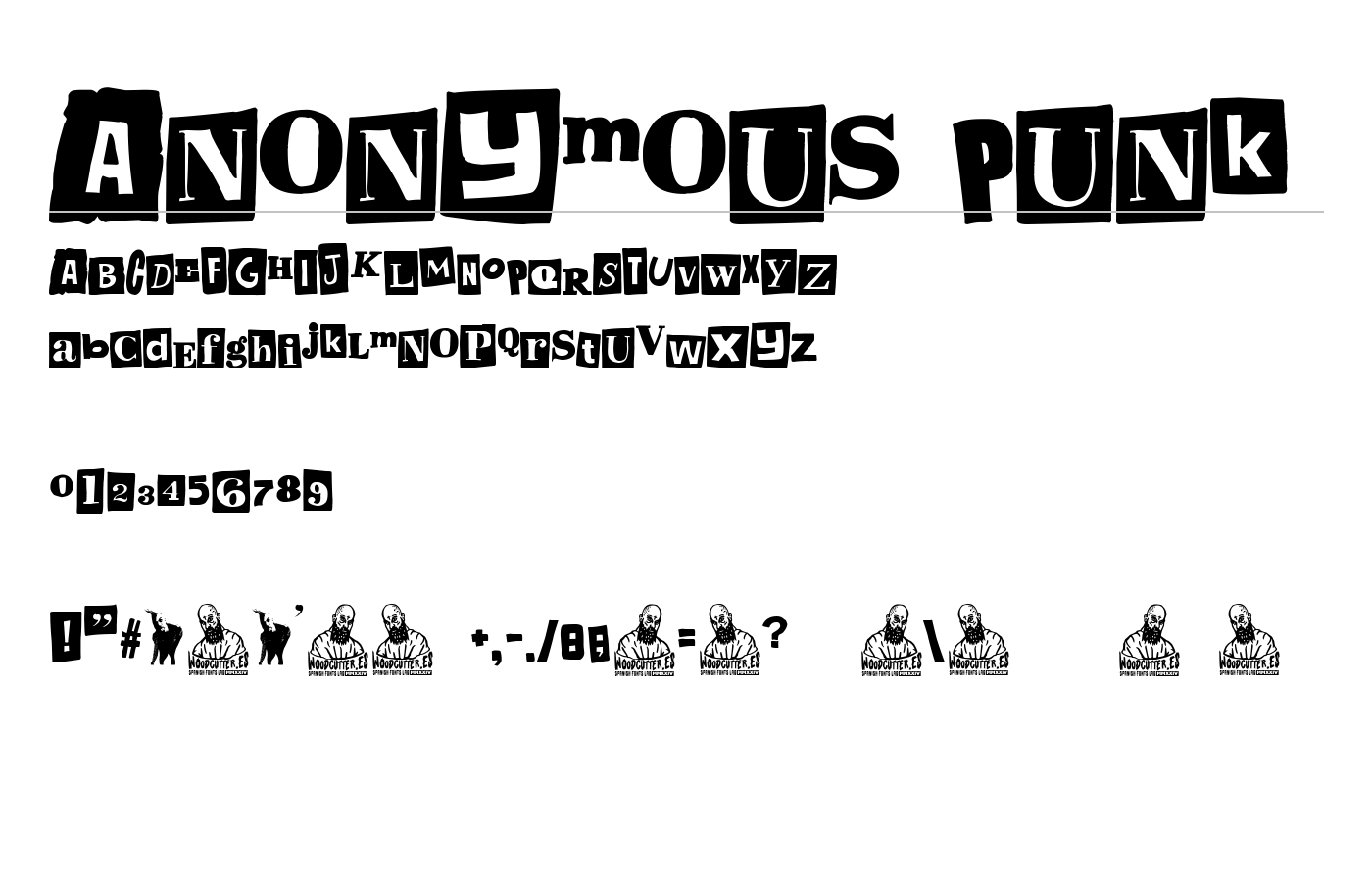
Anonymous Punk is a bold, irregular sans serif font that mimics the cut-and-paste look of classic punk rock flyers and zines. Its blocky, uneven letters with high contrast and a playful mix of uppercase and lowercase convey a rebellious, raw, and edgy personality, ideal for designs seeking a DIY or counter-culture vibe. This font works best in posters, logos, and branding that want to evoke a sense of underground music, youth culture, or nonconformity.
Anonymous Punk Font
About Anonymous Punk Font